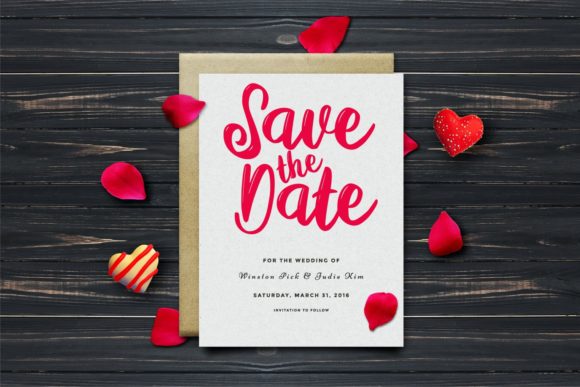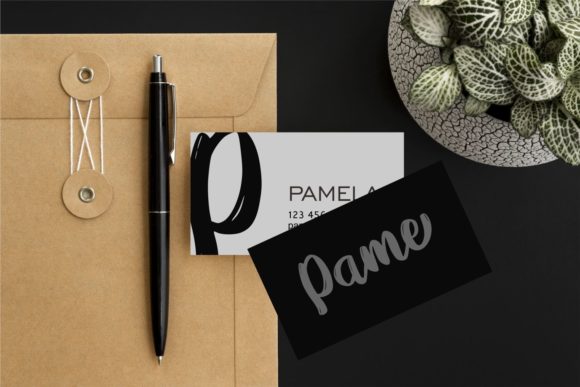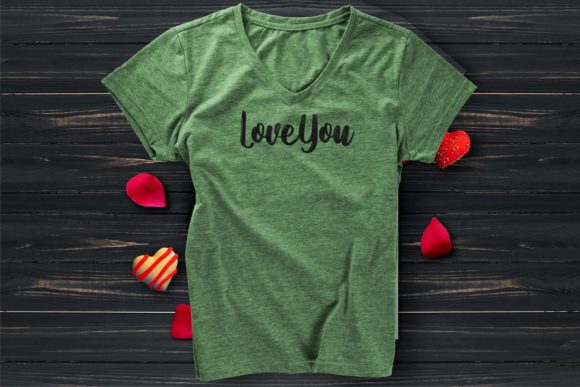
HomeScript FontsViera Font Script Fonts Viera Font FacebookXPinterestWhatsApp Viera Font Poster 2 Viera Font Poster 3 Viera Font Poster 4 Viera Font Poster 5 About Viera Font Viera is a truly charming and fun handwritten font with a cool feel. Get inspired by its unique style! DOWNLOAD ON CREATIVE FABRICAThis font is sold and delivered by Creative Fabrica. Font Canyon may earn a commission if you buy through this link. People also explored Handmade Mandala Font The Coventysh Font Mojito Font Antiquarian Pashmina Font Bellarinde Font Zealous Font Le Spegge Font Vintage Valentine Font 321 0 TagsViera Font Previous articleQueen FontNext articleThe Knot Font LEAVE A REPLY Cancel reply Comment: Please enter your comment! Name:* Please enter your name here Email:* You have entered an incorrect email address! Please enter your email address here Website: Save my name, email, and website in this browser for the next time I comment. Personal Use Free Hearted Personal Use Free Read more about this font Nottingsam Personal Use Free Read more about this font Homelands Personal Use Free Read more about this font Marthissa Personal Use Free Read more about this font BLOG Elegant Wedding Invitation Fonts – Handwritten & Script Fonts Elegant Wedding Invitation Fonts Your wedding day is one of the most important moments of your life, and every detail matters—including your invitation design. Our... Free vs Paid Fonts: Why Investing in Premium Fonts Is Worth It Fonts That Capture the Spirit of New York City 5 Fonts That Will Dominate Design Trends in 2026